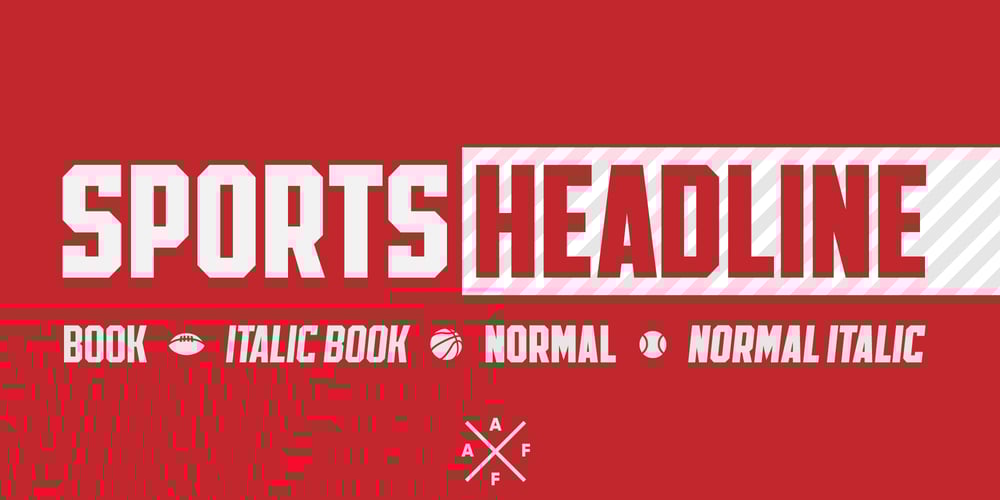
Sports Headline
Sports Headline Font Family was designed by Swinn Jonathan and published by Alphabet Agency. Sports Headline contains 4 styles and family package options. The Sports Headline font family was developed from design work creating captivating sports related typography for branding and logotype. The font characters are all capitalized and the two different font weight offer a variation that allows each weight to play off the other and work together well.Each font contains all Latin simple characters.